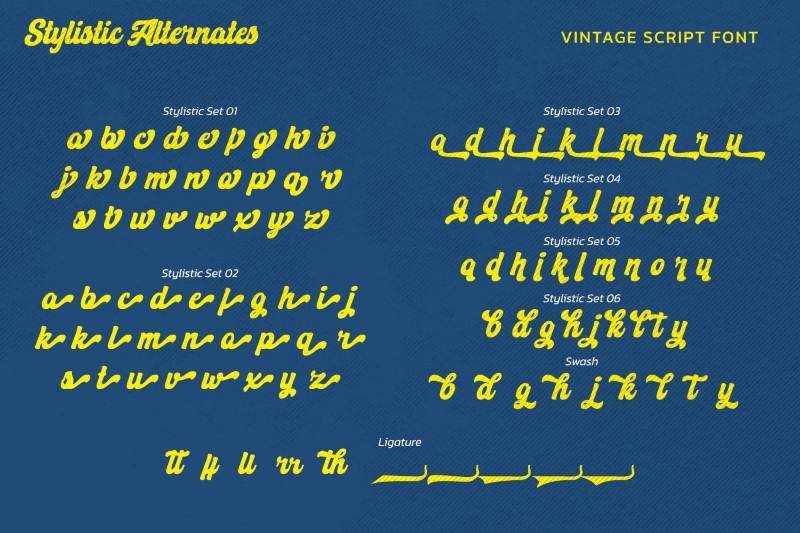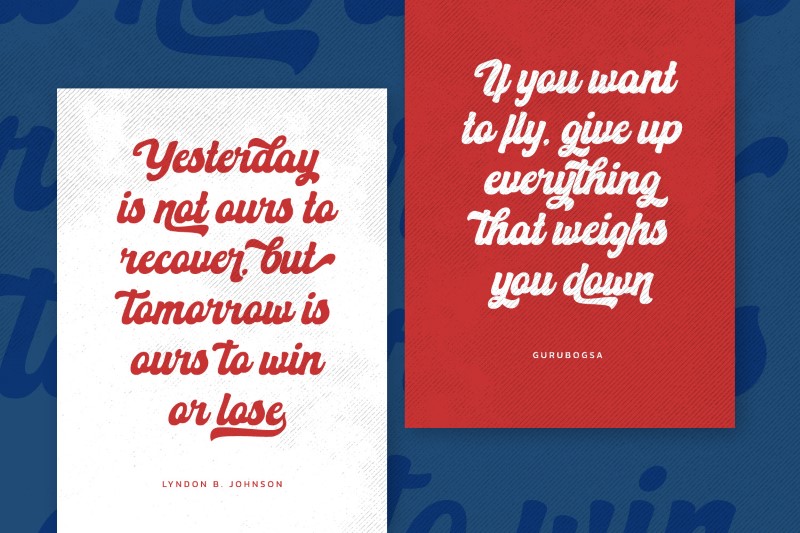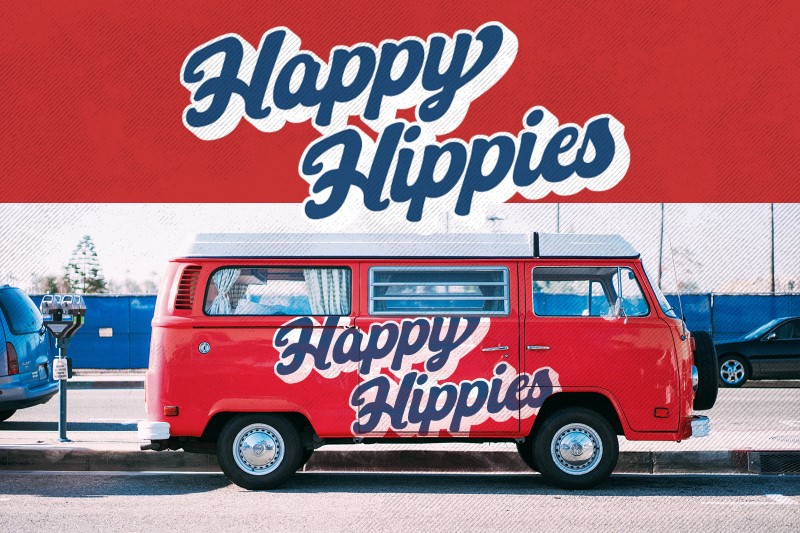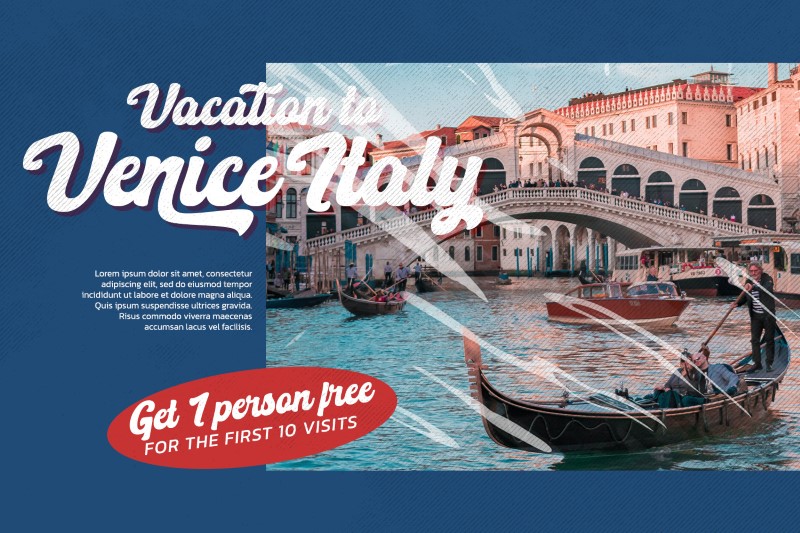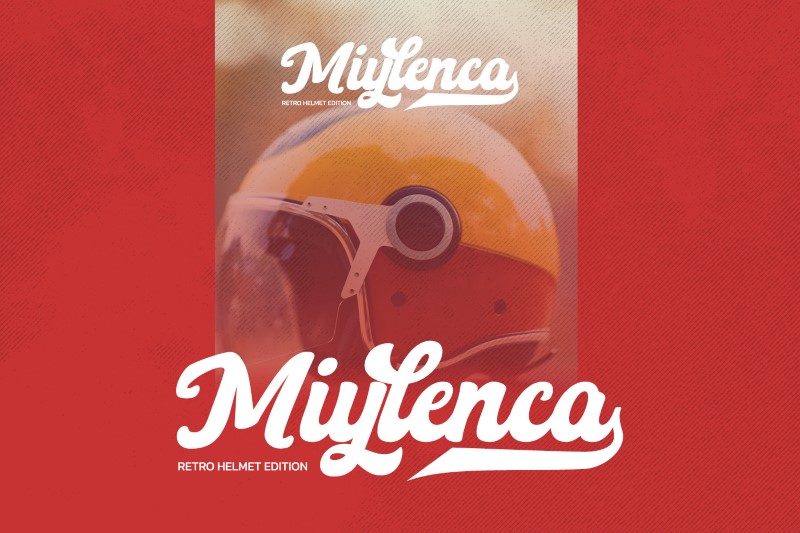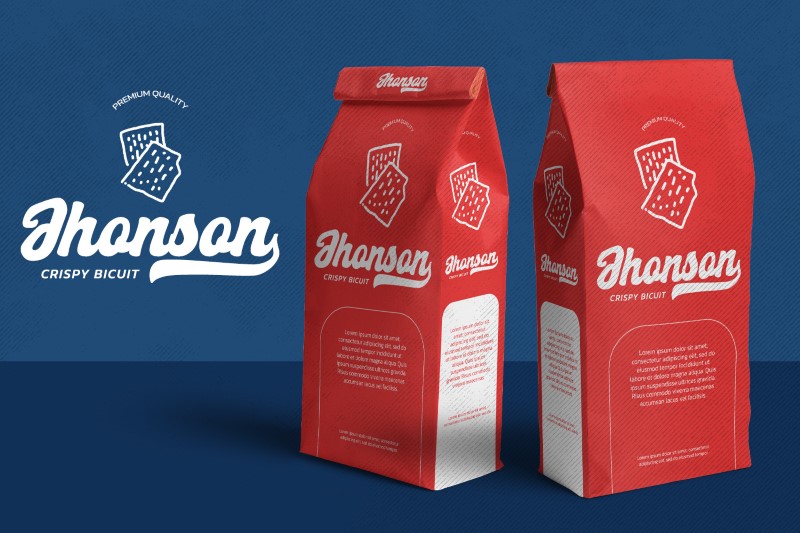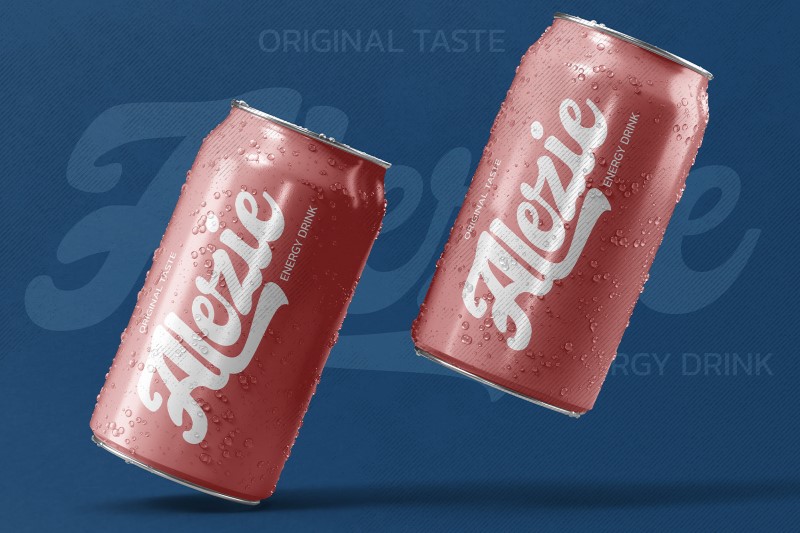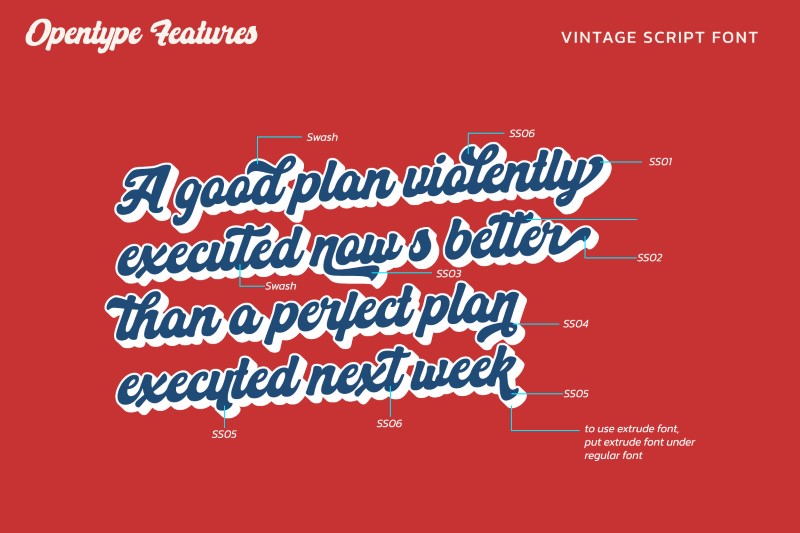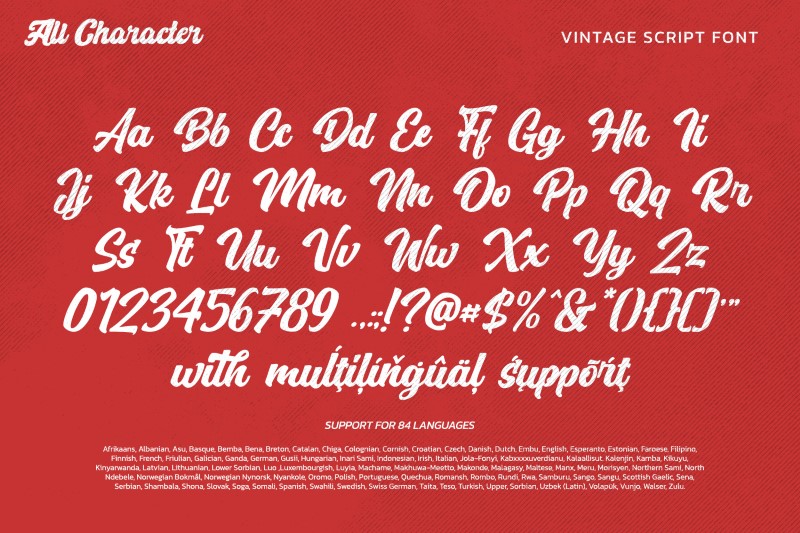
Hello Youthen
Hello Youthen having thick, high, round, irregular displays is a playful retro font. Besides, it contains the swinging final wipes and curves on some of the characters to look more visually beautiful. The connecting scratches between the lines makes this font easy to read. Hello Youthen can be even more special with the extrude version. You can enjoy the available for.
• Ligatures
• Alternates
• Stylistic Sets
• Multilingual Supports
• Numerals and Punctuations
Hello Youthen fits for any design projects, such as posters, banners, logos, book covers, invitations, quotes, headings, printed products, merchandise, social media, etc. Find out more ways to use this font by taking a look at the font preview.